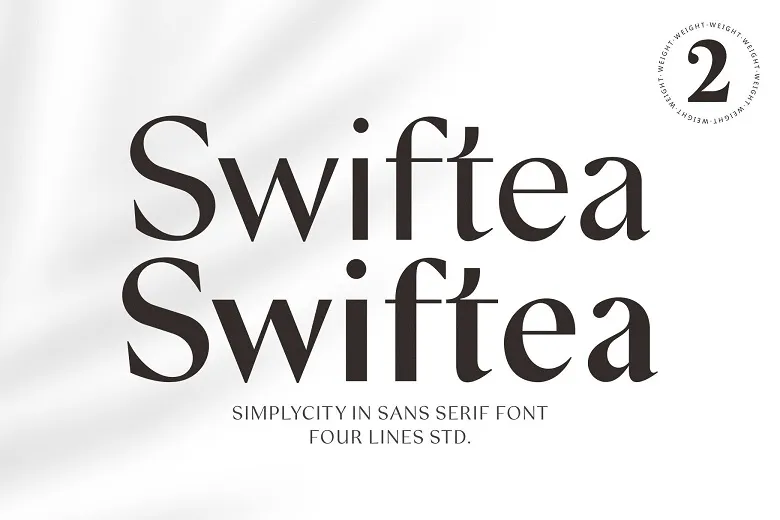
Swiftea Font
Swiftea Font is a sans-serif typeface that is designed in a way that is clean and minimalistic with an aim of being used for different projects. This font is simple, elegant and easy to read that makes it suitable for use in various designs.